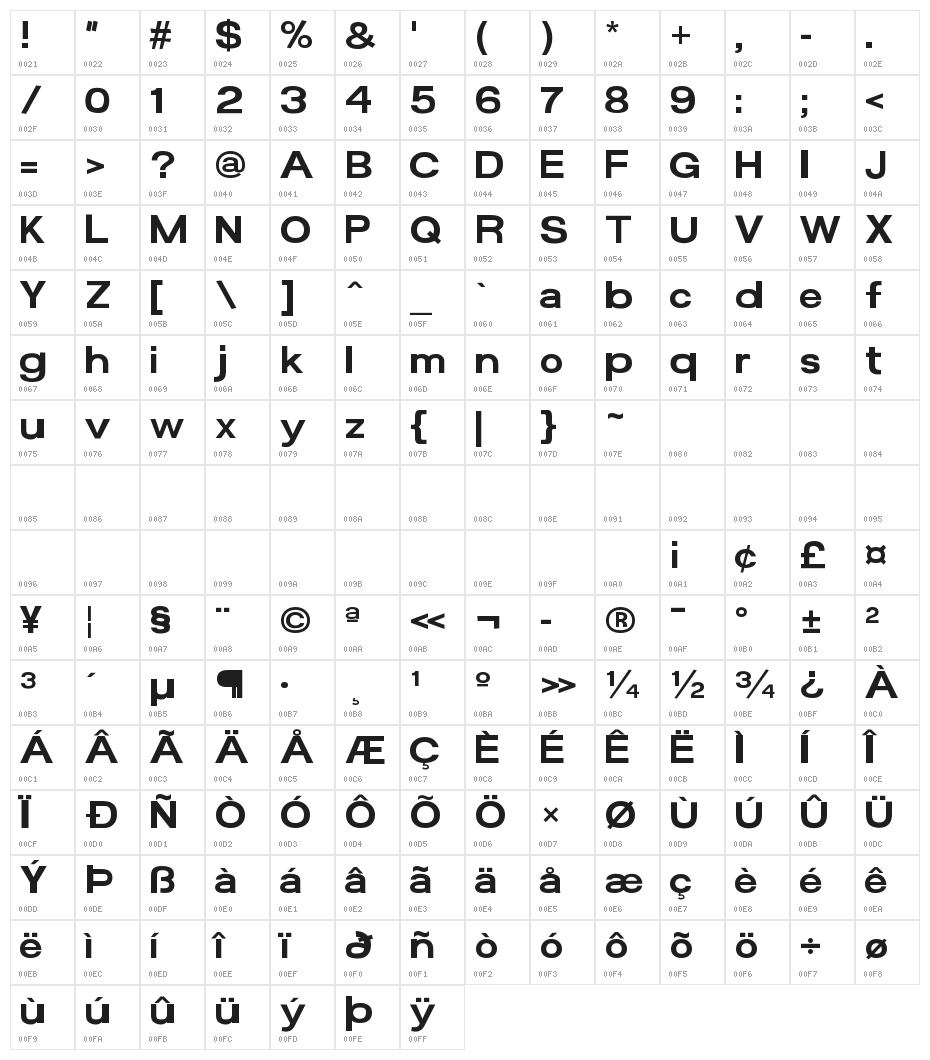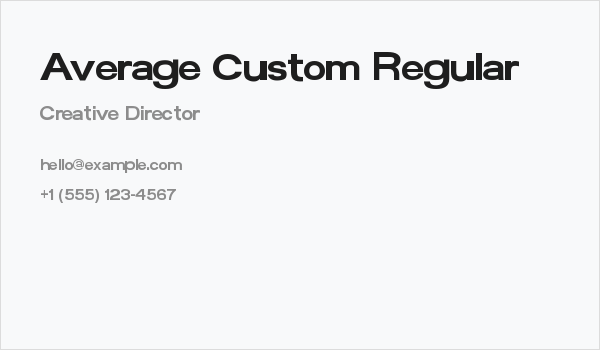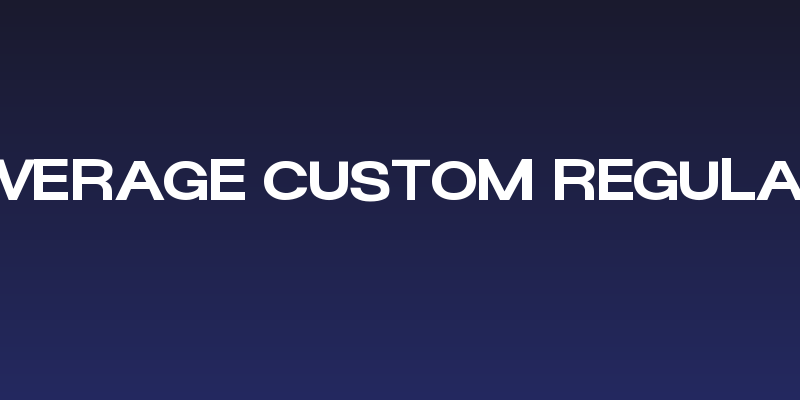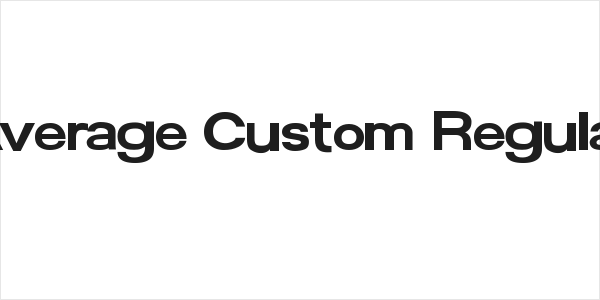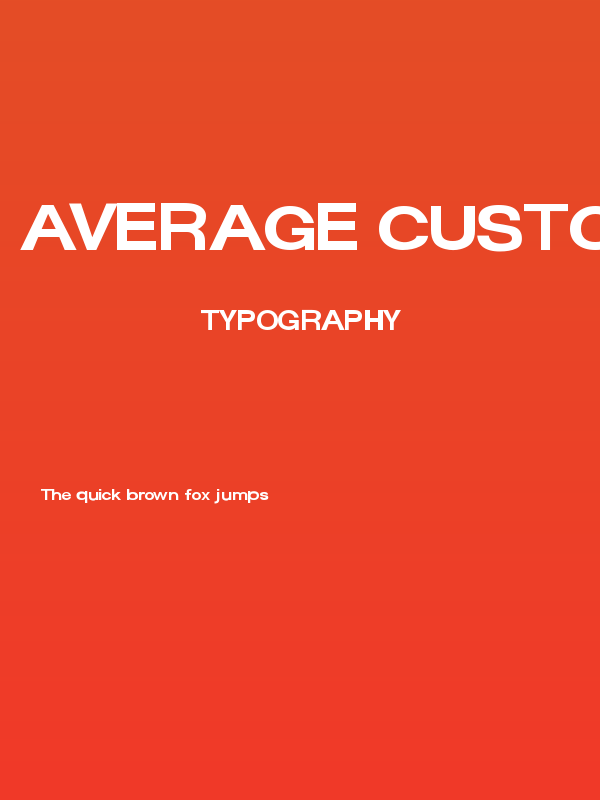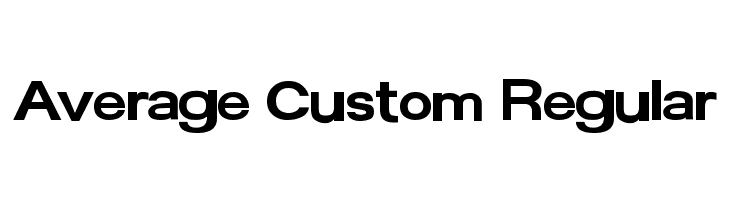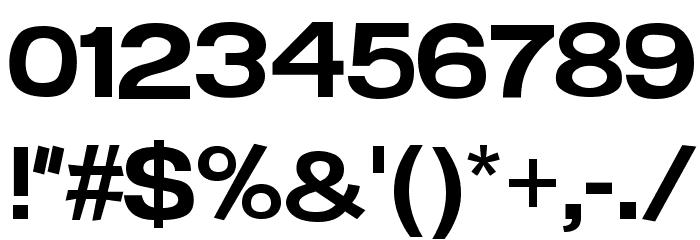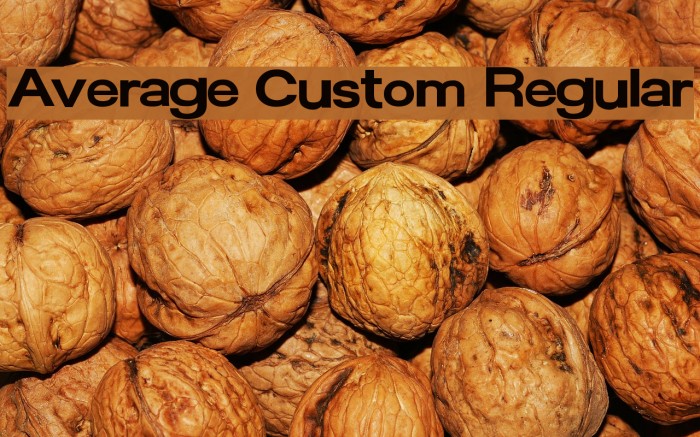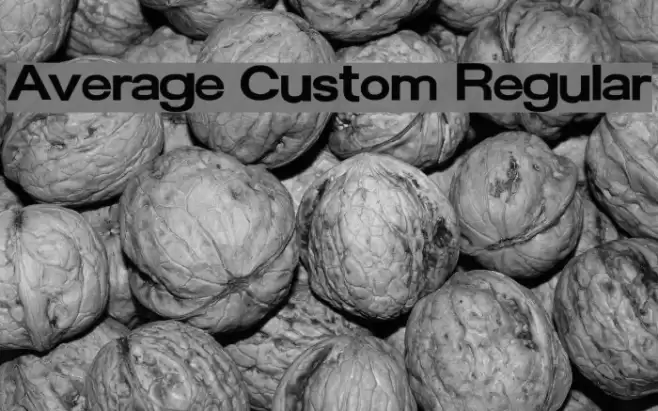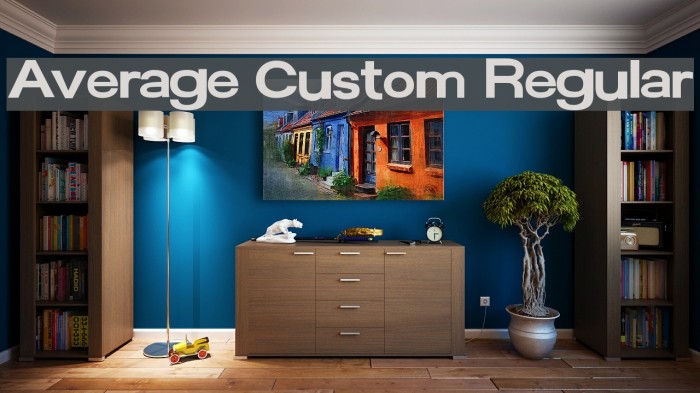
Average Custom Regular Font
Average Custom Regular Description
This font features a bold and modern sans-serif style, characterized by clean lines and a uniform stroke width. The uppercase and lowercase letters are well-proportioned, offering a harmonious balance that enhances readability. The numerals are distinct and clear, making them suitable for various applications. Special characters are included, maintaining the font's cohesive design. The overall appearance is sleek and contemporary, making it versatile for both digital and print media. Its simplicity and clarity make it ideal for conveying messages effectively, without unnecessary embellishments.